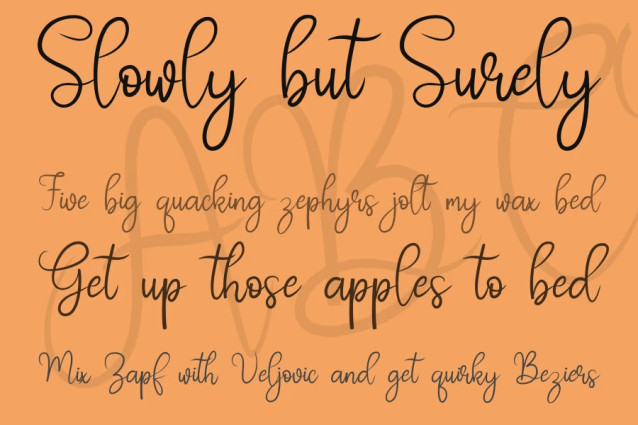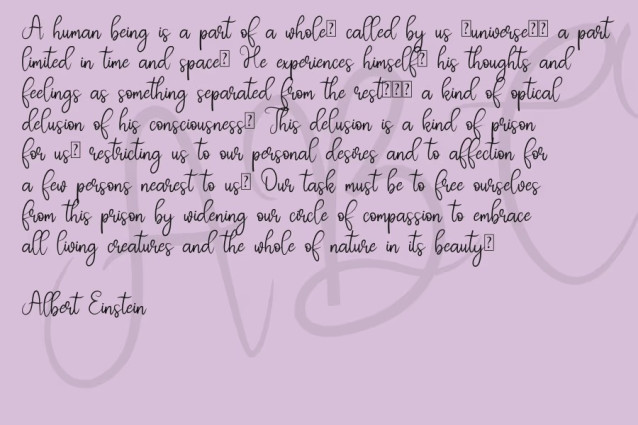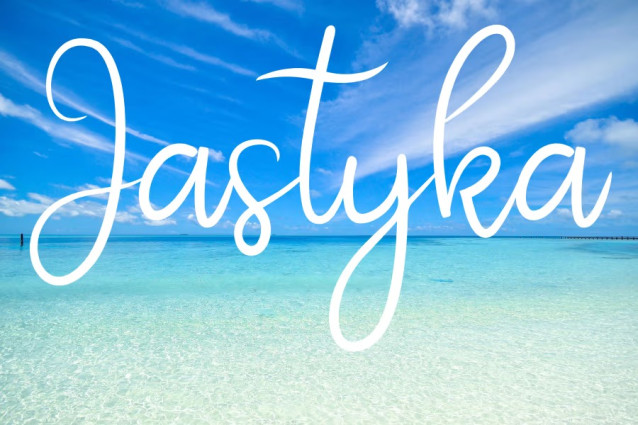
Jastyka Font is a simple and friendly handwritten font. Its natural and unique style makes it incredibly fitting to a large pool of designs. The only limit is your imagination!